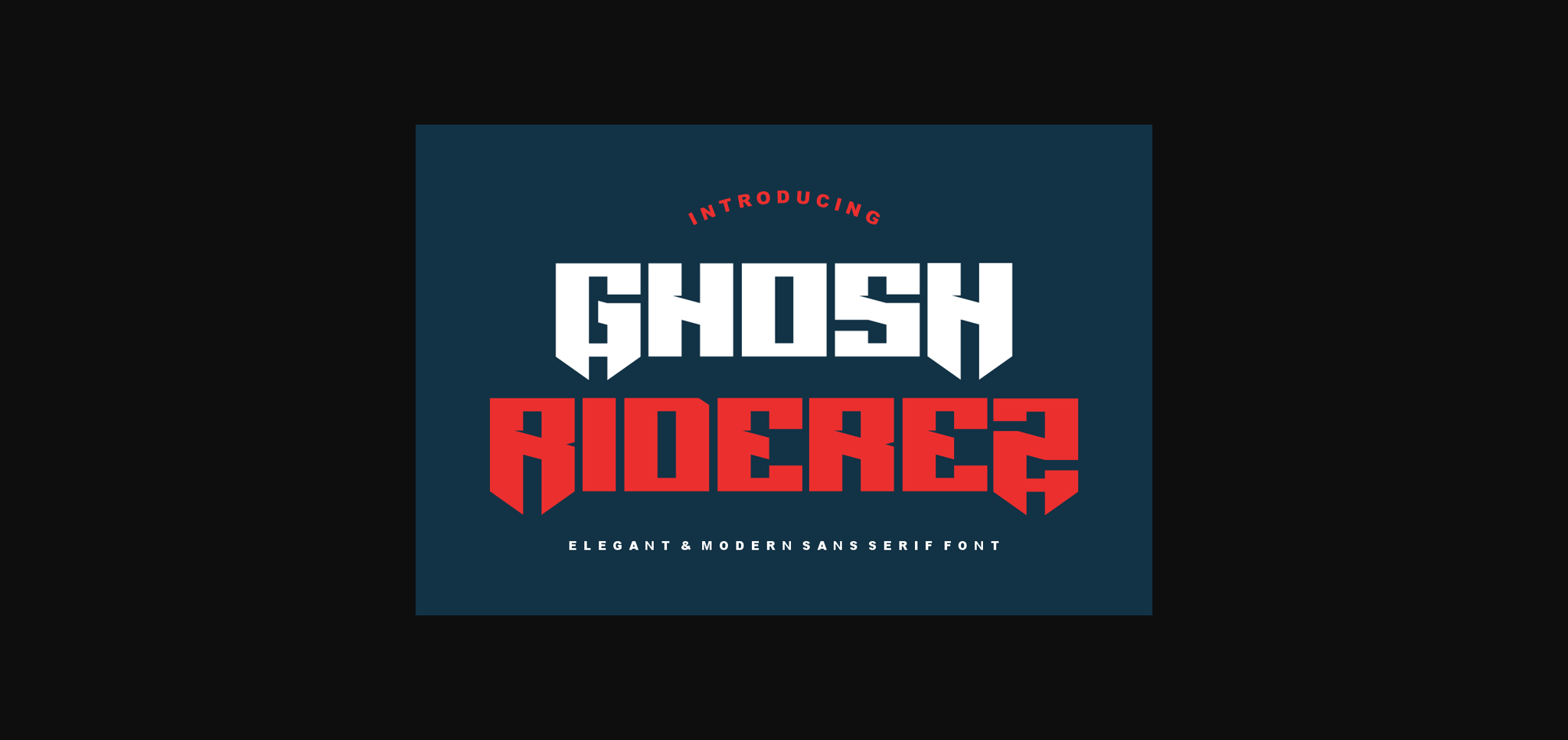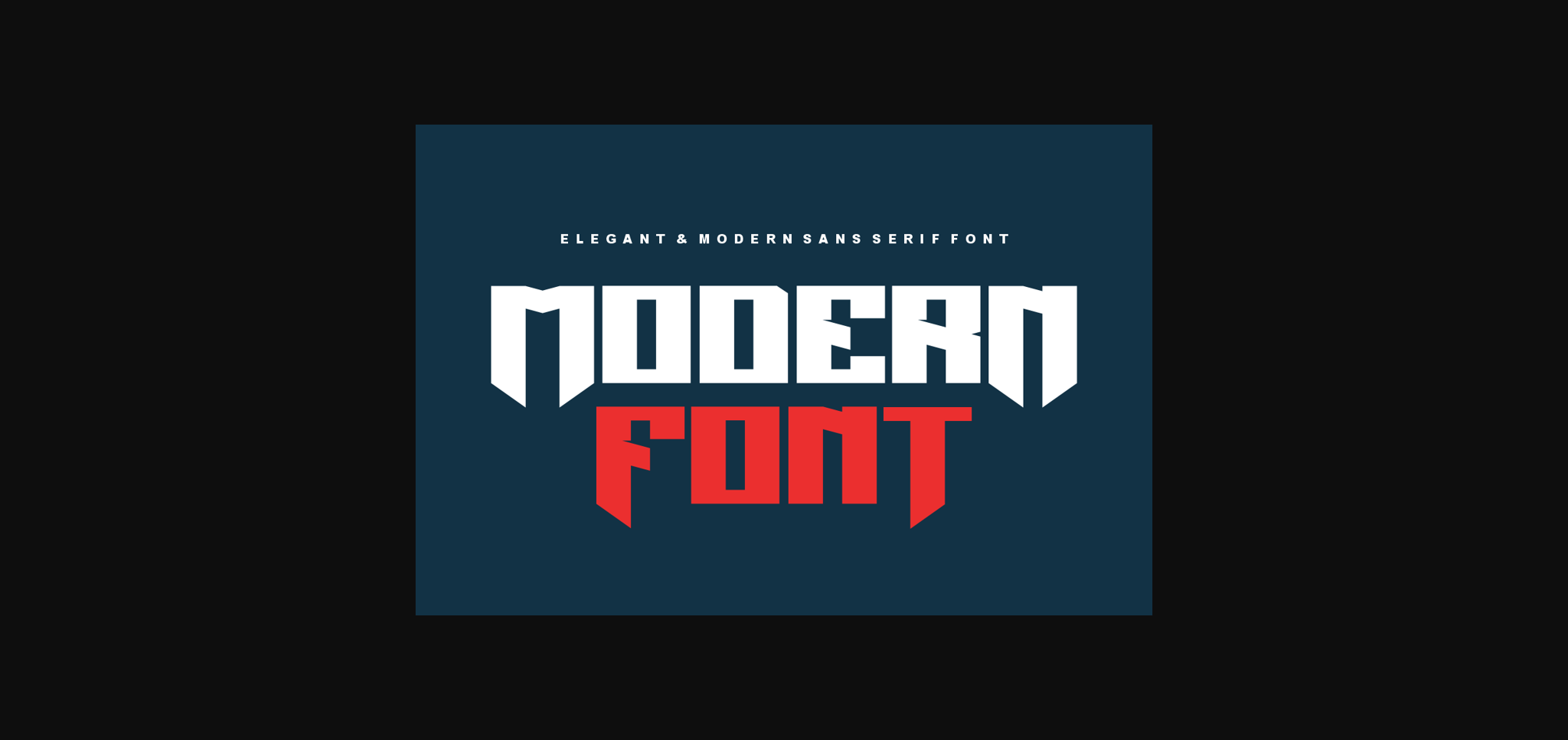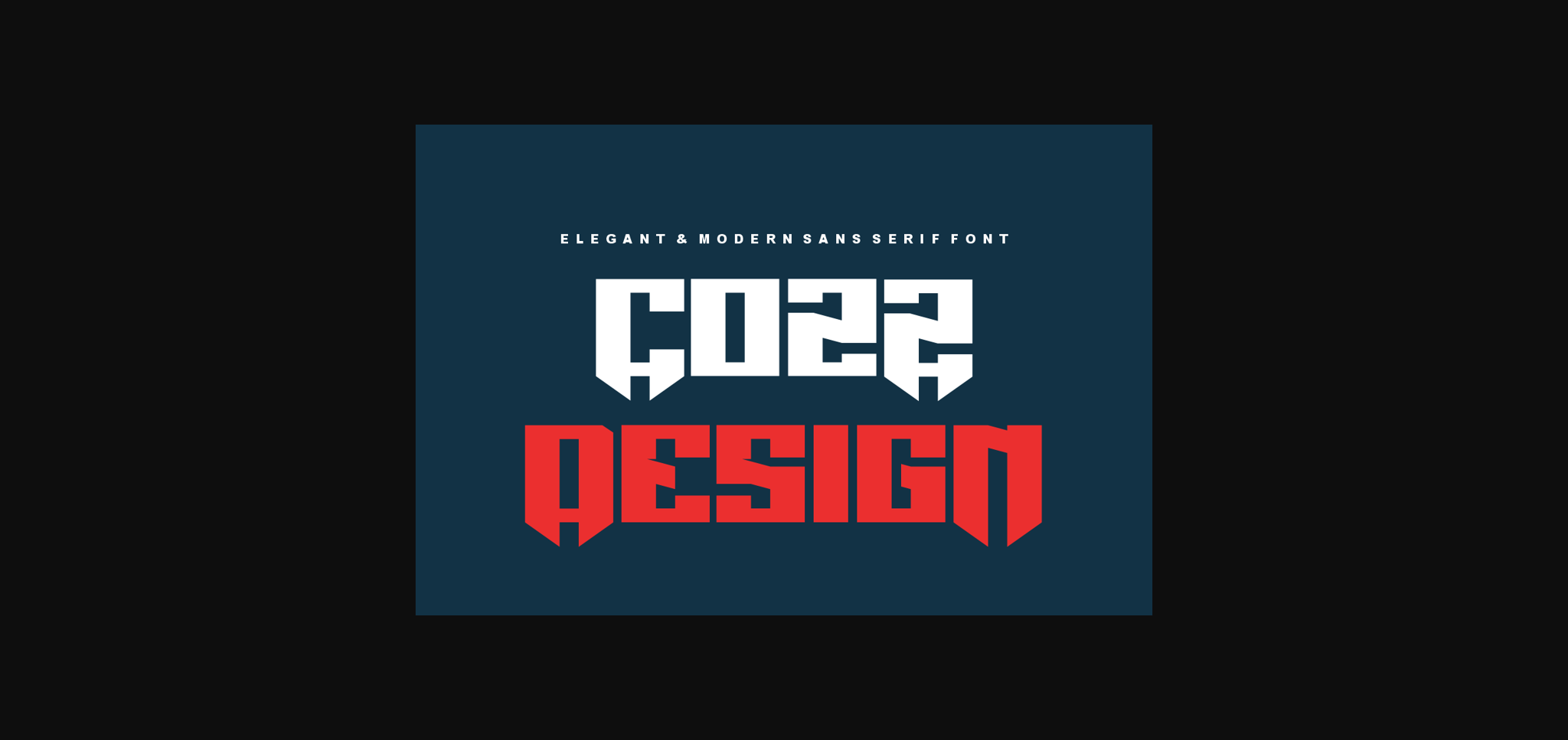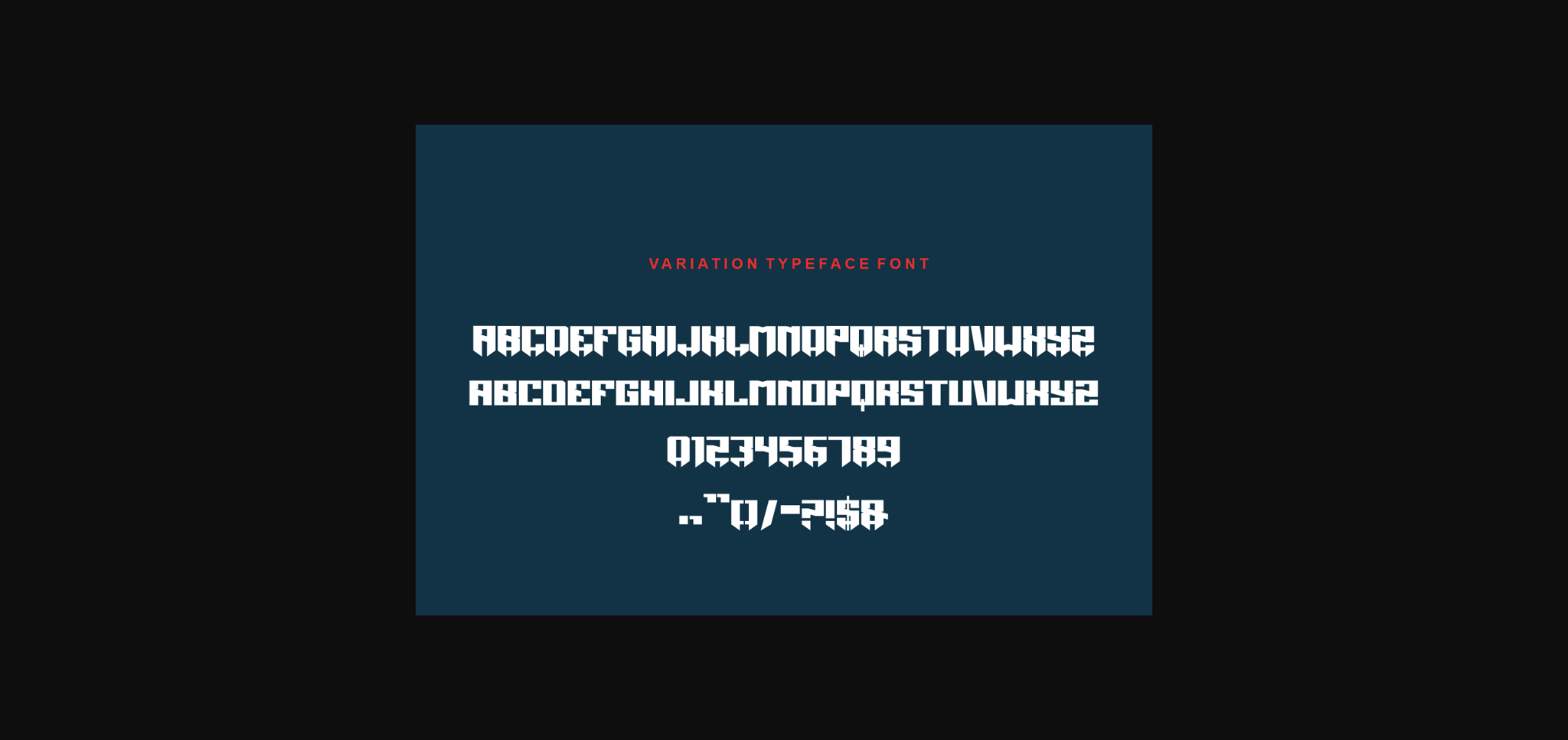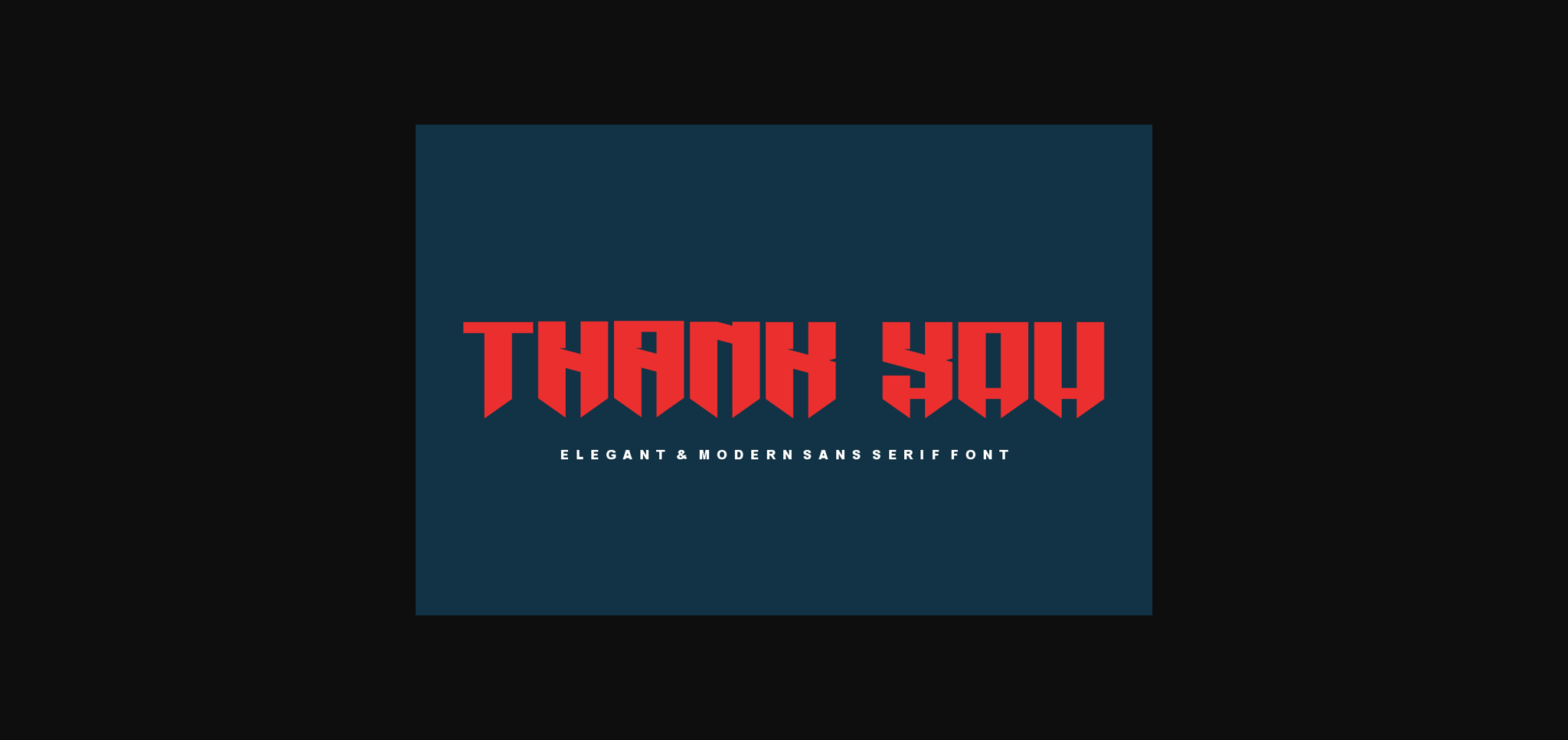
Ghosh Riderez Font
About Ghosh Riderez Font
Ghosh Riderezt – Modern, bold, and authentic sans serif font. The font is suitable for any branding project like logo, t-shirt printing, esports, and many more. It will look outstanding in a wide range of contexts.